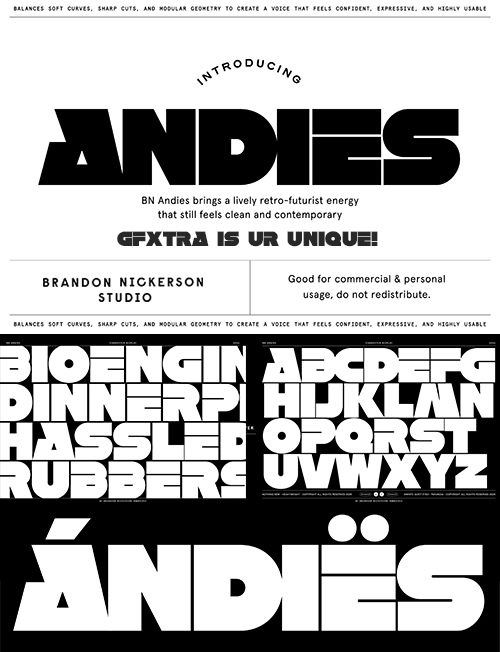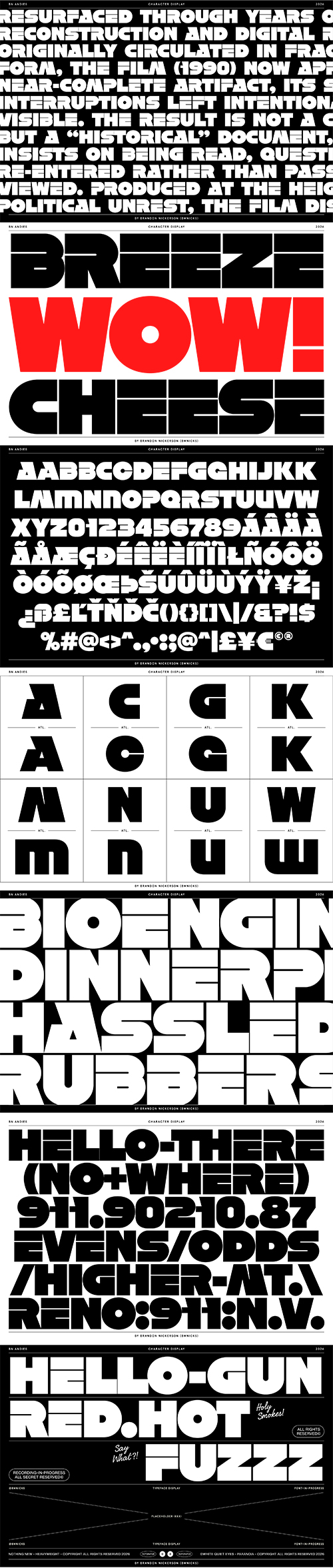
BN Andies - Single Style Font
by Brandon Nickerson Studio
- BN Andies is a bold display typeface built with geometric structure and graphic impact. It balances soft curves, sharp cuts, and modular geometry to create a voice that feels confident, expressive, and highly usable. Designed to stand out in headlines, branding, posters, packaging, social content, and editorial layouts, Andies brings a lively retro-futurist energy that still feels clean and contemporary.